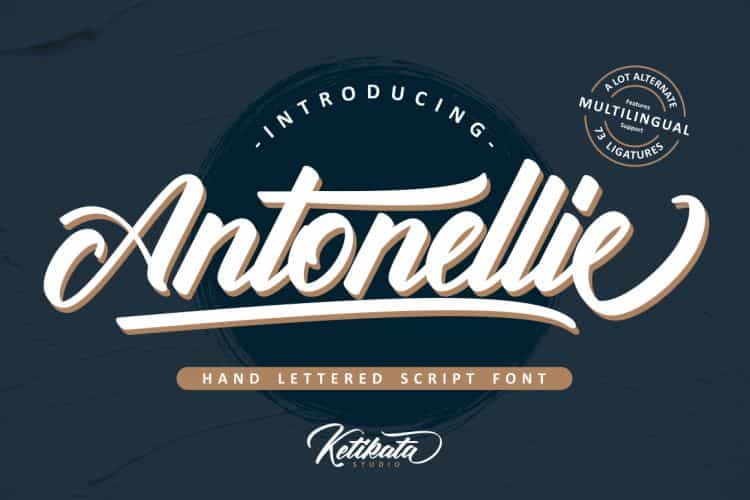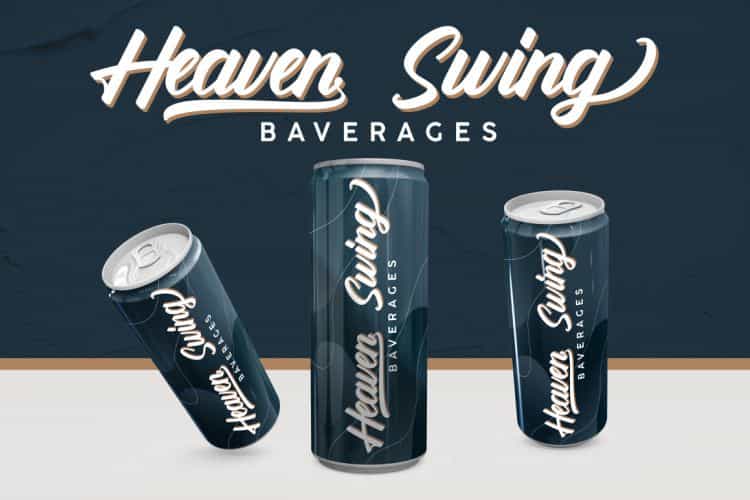
Antonellie Hand Lettered Script is a new addition to our collection! Antonellie Calligraphy Font is a hard and strong script font. Every stroke is hand lettered with great precision. The font is a multipurpose one with many stylistic alternate and swashes that will assist you in making your own personalized design. This font is so special and ideal for branding that it can be used as a logo (logotype) or in any other design task, like quotes, merchandise, packaging, business card and many others.